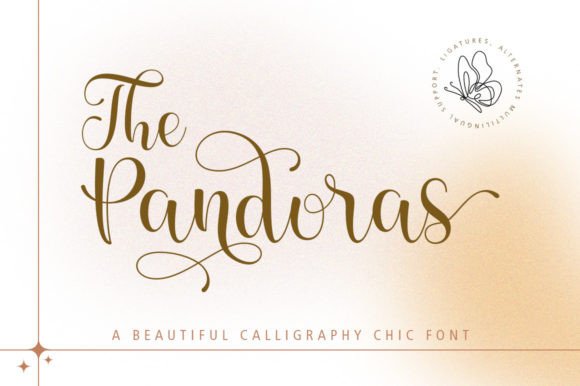
The Pandoras Font
Step into the realm of elegance and sophistication with The Pandoras Script, a calligraphy masterpiece tailor-made for luxury brands.
This modern calligraphy design, presented in a Regular style, exudes casual beauty and effortless charm. Adorned with swashes that flow like liquid grace, Pandoras Script adds a touch of whimsy and personality to your creative projects.
Unleash your imagination and explore the boundless possibilities of Pandoras Script. Its versatility knows no bounds, making it the perfect choice for logos that demand attention, product packaging that exudes luxury, and wedding invitations that capture the essence of romance. Elevate your branding with its chic appeal, let your headlines dance with style, and transform signage into works of art.
Pandoras Script is more than just a font; it's a gateway to a world of creative expression. Craft labels that speak volumes, signatures that leave a lasting impression, and book covers that entice readers with their captivating allure. Create posters that demand attention, quotes that resonate with emotion, and packaging that sets your products apart from the ordinary.
With Pandoras Script, you'll discover a font that effortlessly blends timeless elegance with modern sophistication. Its PUA Unicode coding grants you full access to a world of additional characters, unlocking creative possibilities that were once unimaginable.
Step into the spotlight with Pandoras Script, the font that defines luxury and sets your creations apart. Discover the power of calligraphy and let your imagination run wild as you create designs that captivate and inspire.